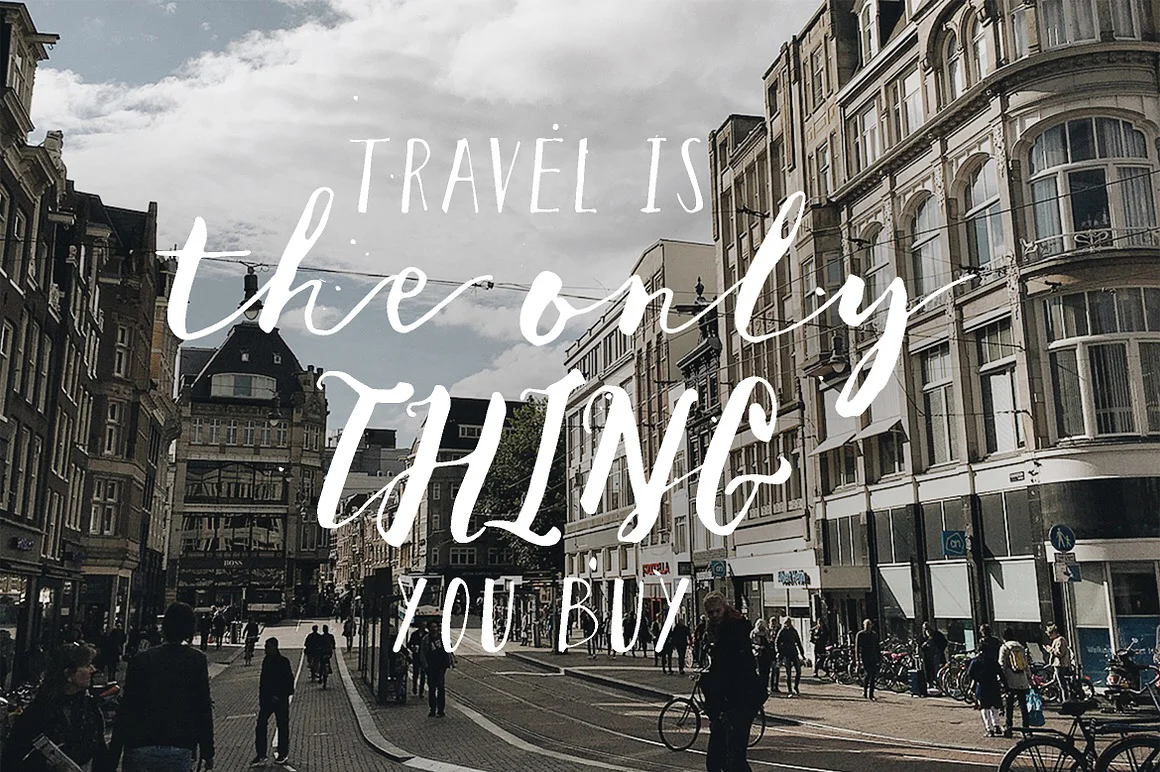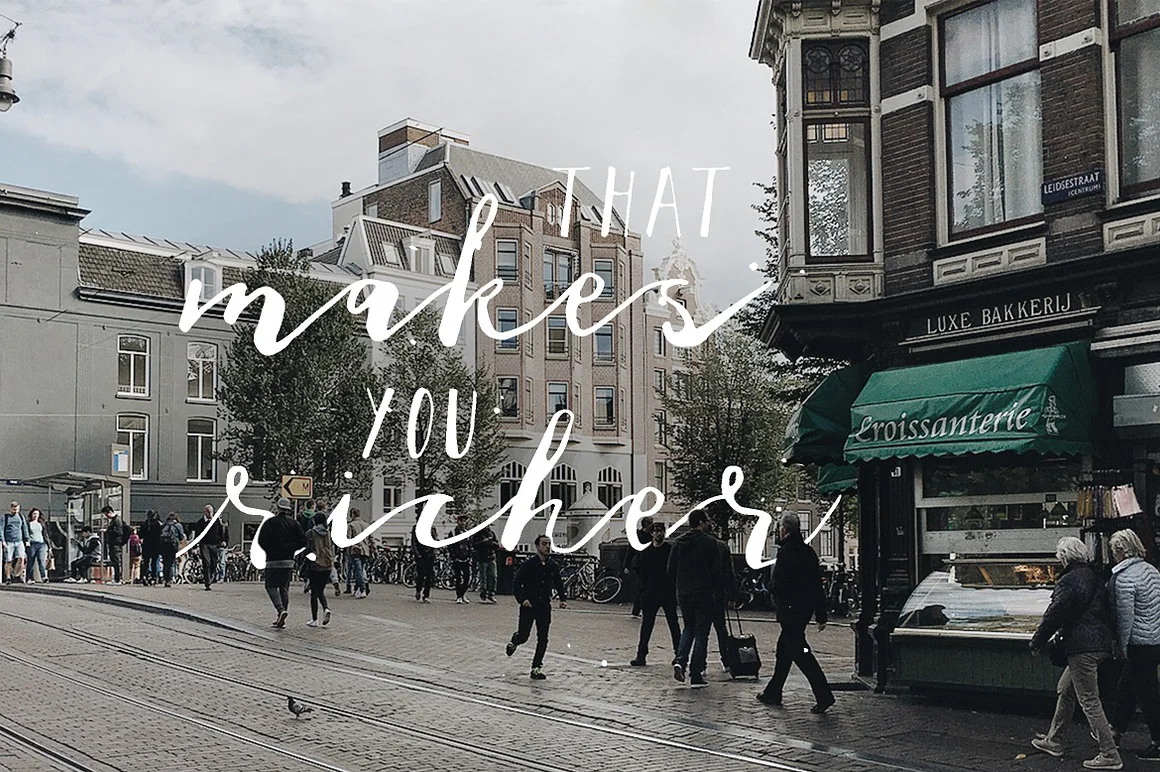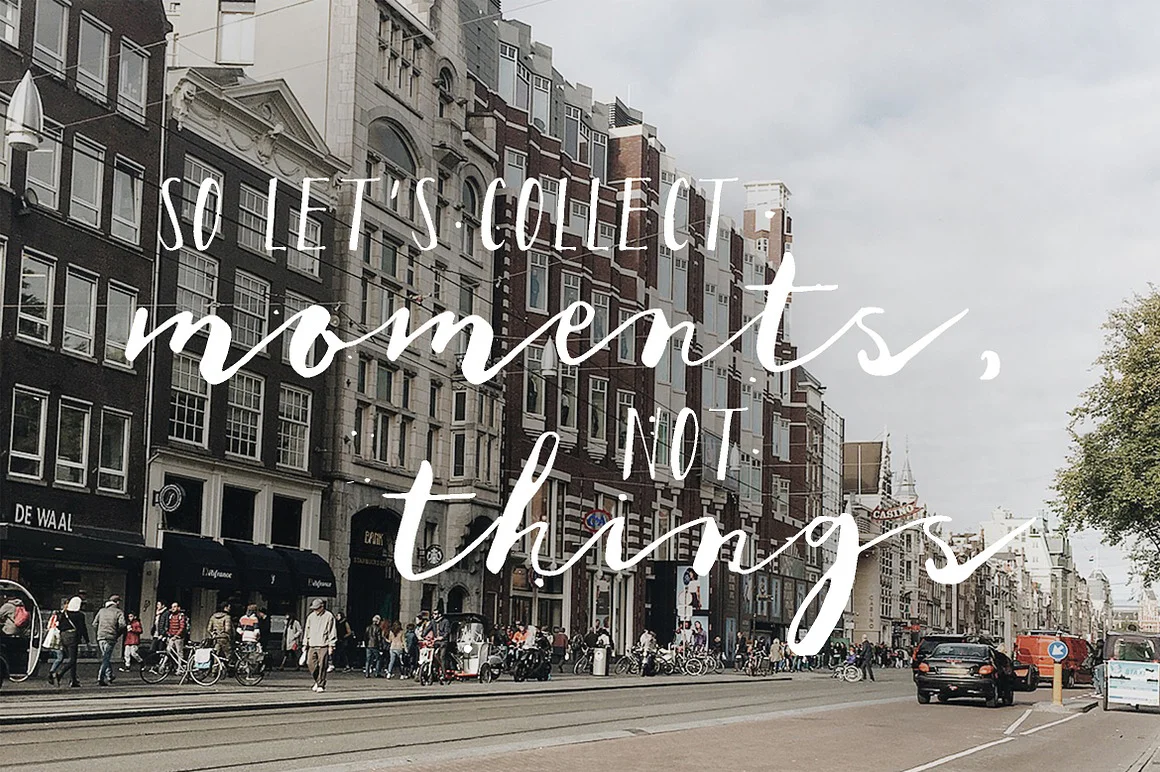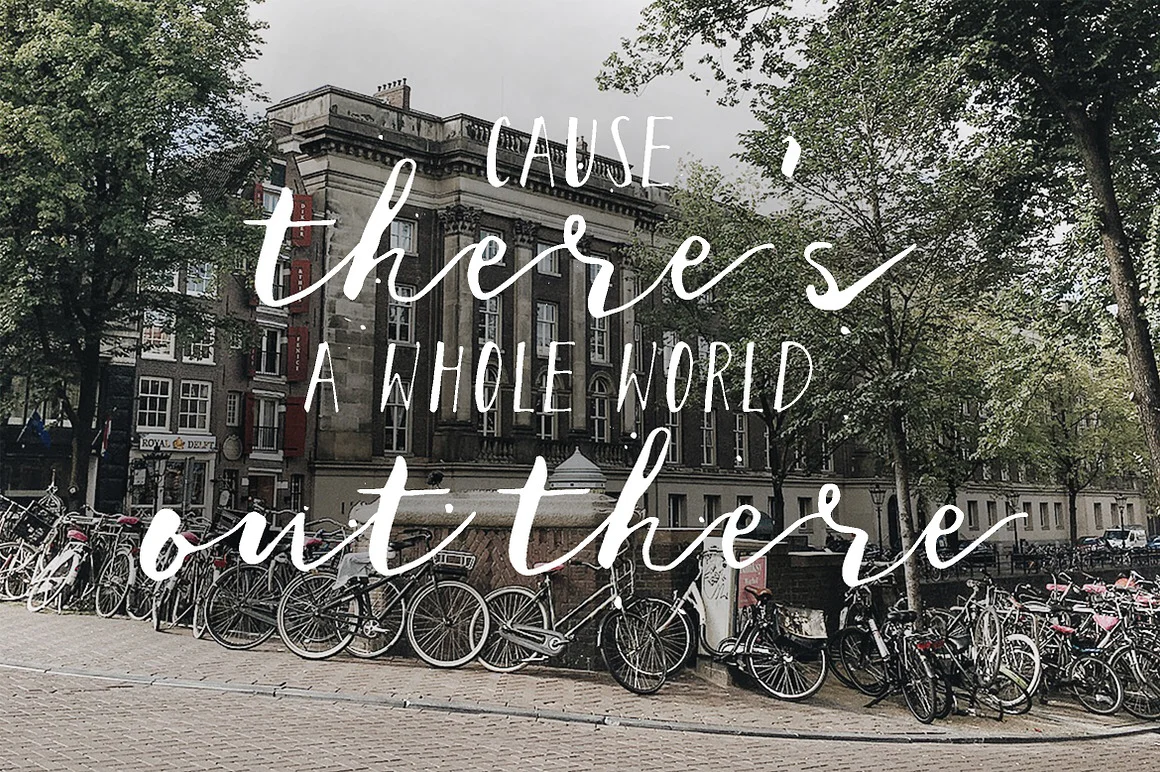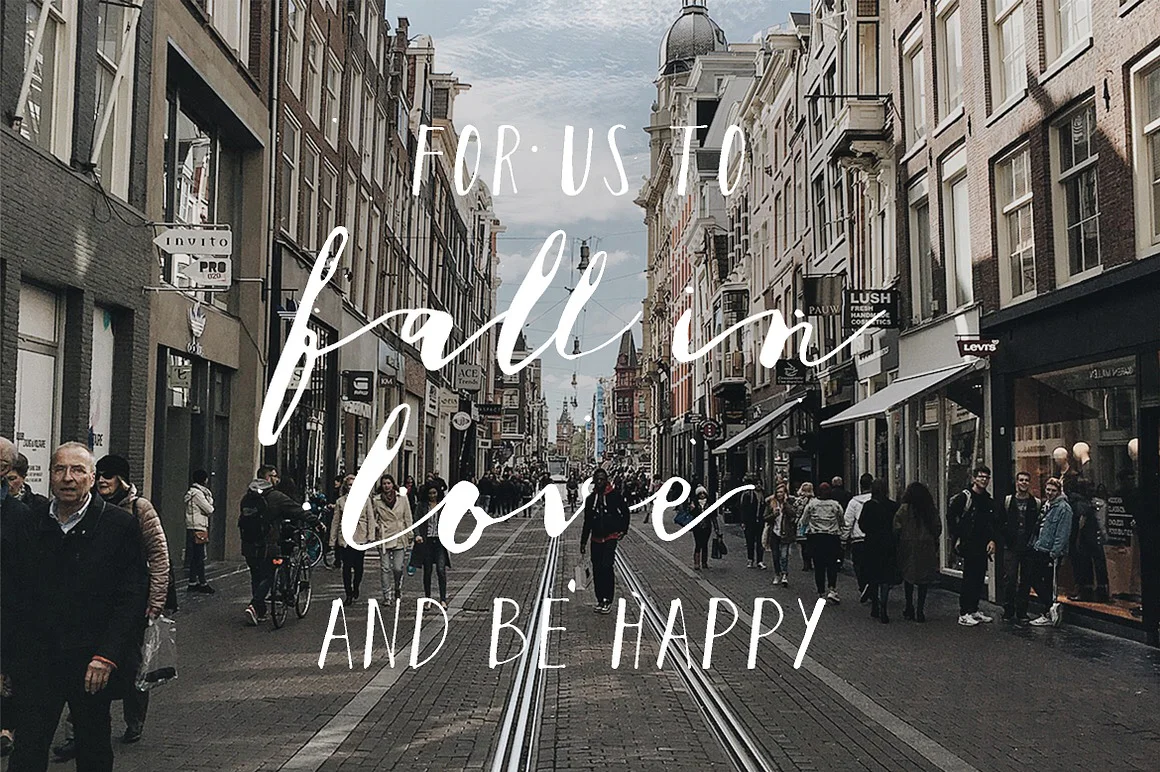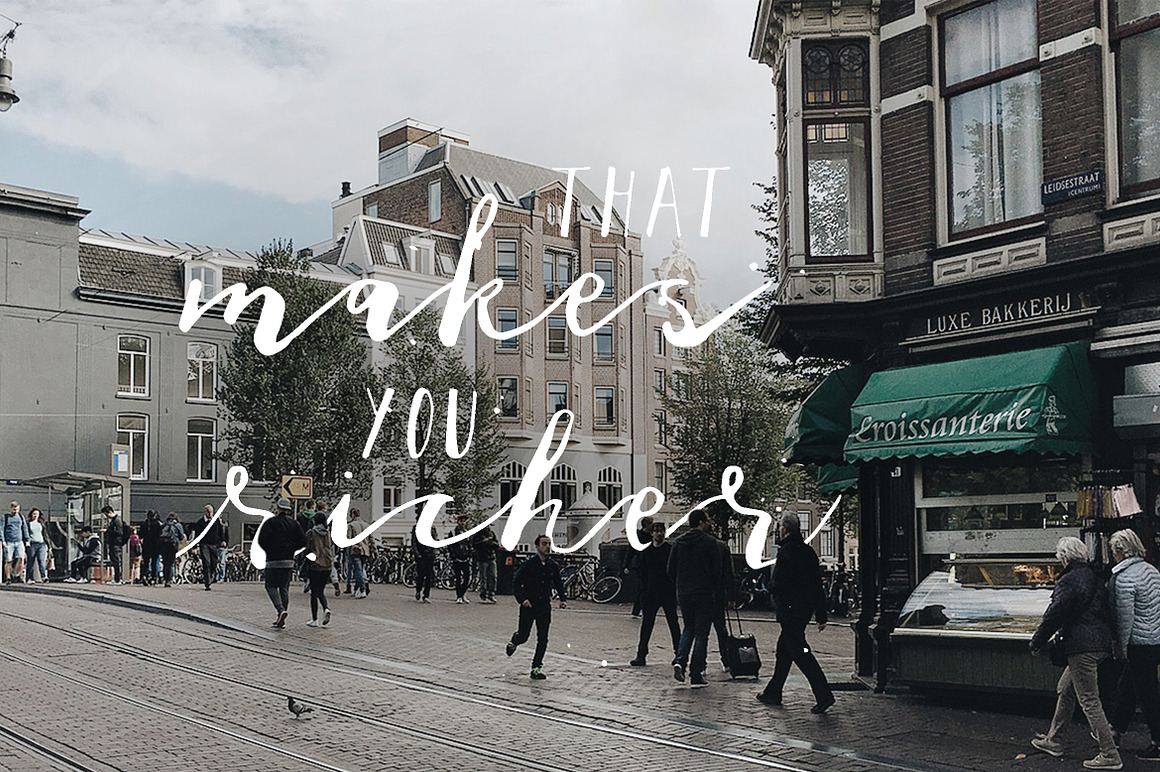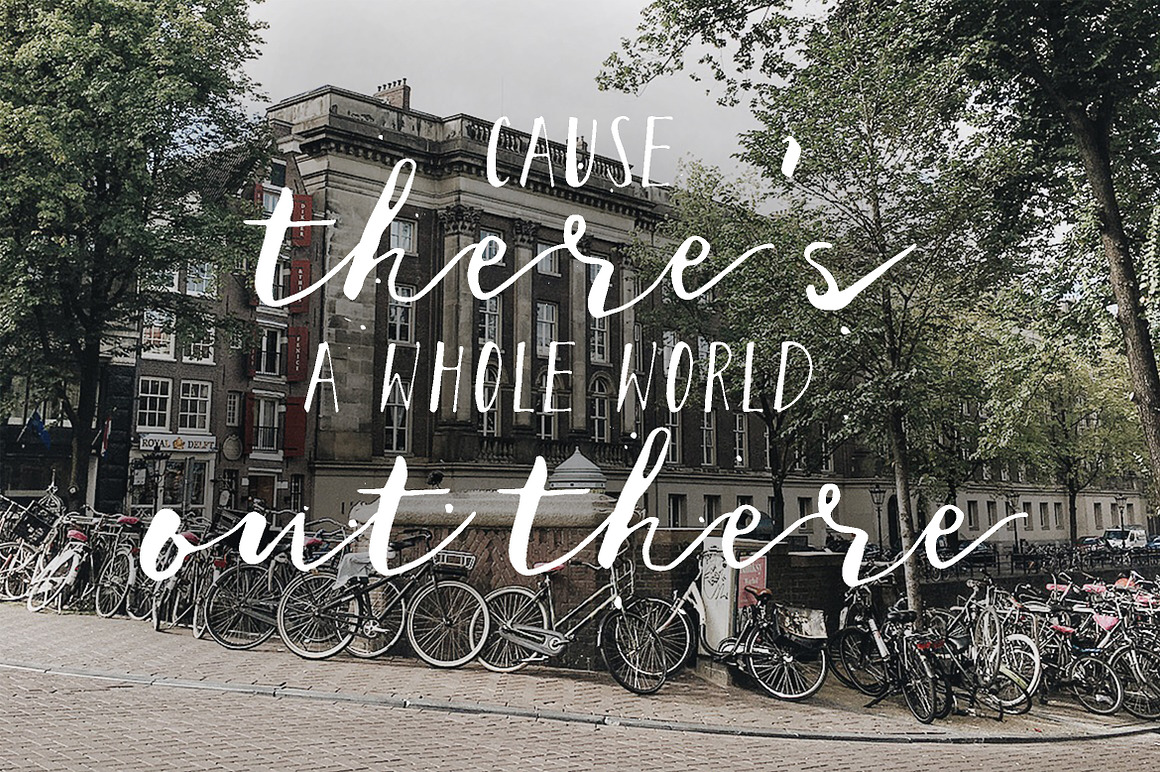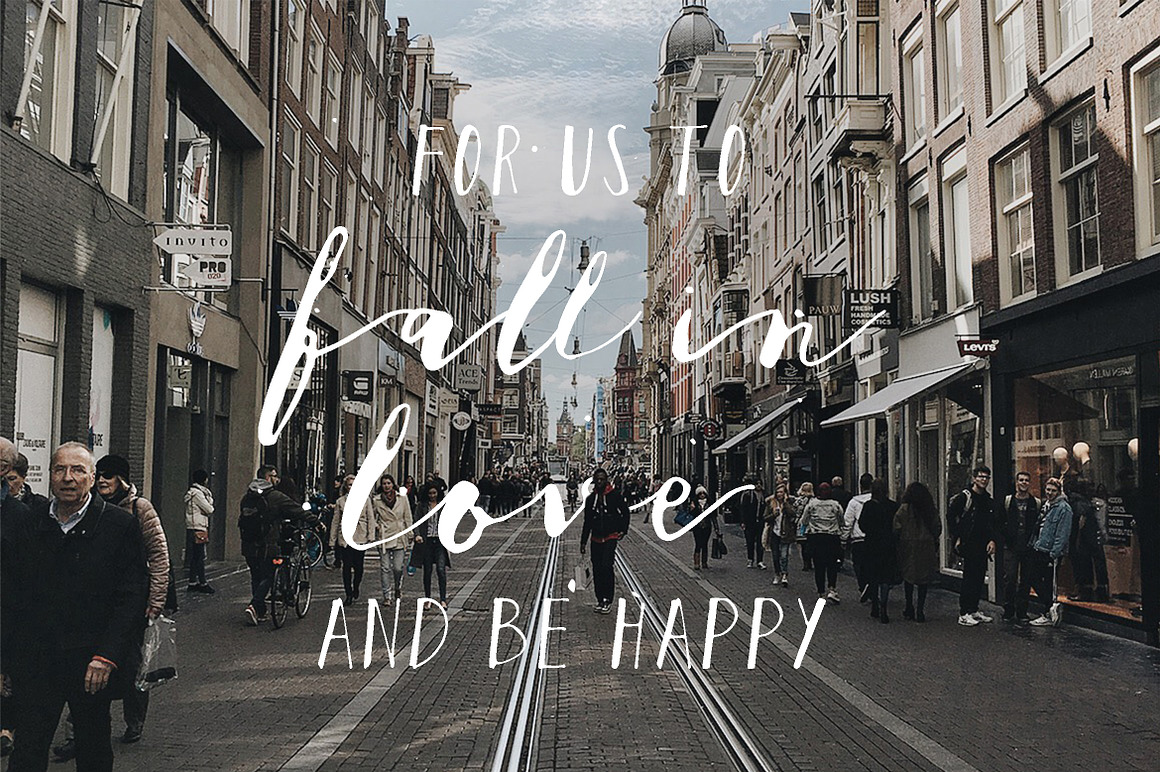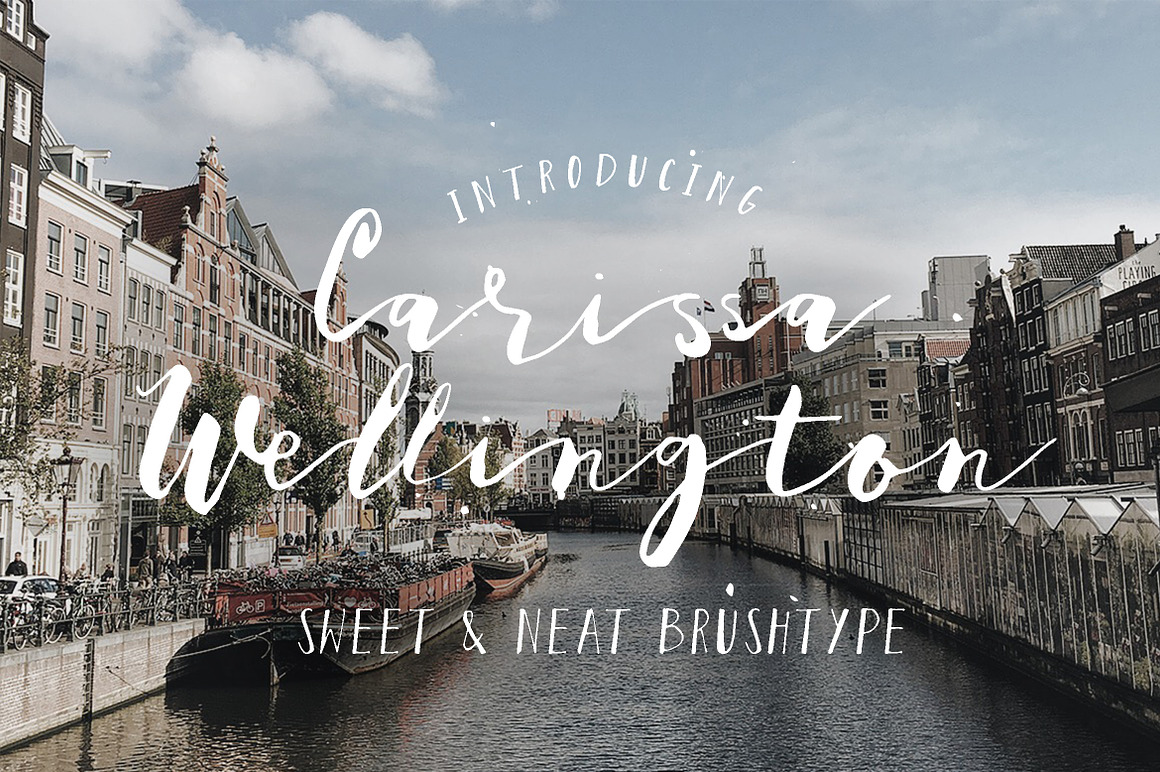
Carissa Wellington Script Font
Carissa Wellington Script Font is perfect for luxury wedding invitations, high-end fashion branding, elegant beauty product packaging, sophisticated greeting cards, upscale restaurant branding, premium boutique logos, exclusive event stationery, refined social media graphics, luxury lifestyle marketing, and aristocratic brand identities.
What makes Carissa Wellington Script Font so exciting is its regal elegance that captures the sophistication of aristocratic penmanship with modern luxury appeal. This distinguished script typeface combines classical refinement with contemporary functionality, creating typography that exudes prestige and timeless sophistication.
The Carissa Wellington Script Font family includes regular weight with extensive stylistic alternates, elegant swash characters, sophisticated ligatures, and ornamental flourishes that enable designers to create truly distinguished and personalized luxury typography compositions.
Experience aristocratic elegance with Carissa Wellington Script Font, a magnificently crafted script typeface that brings the grace of high society penmanship to contemporary luxury design. This exceptional font embodies the highest standards of typographic refinement, making it the ultimate choice for projects demanding uncompromising elegance and prestige.
The exquisitely flowing letterforms of Carissa Wellington Script Font showcase the refined artistry of traditional aristocratic calligraphy, with graceful ascenders and perfectly balanced proportions that create natural elegance in every composition. Each character displays meticulous attention to classical penmanship traditions while maintaining optimal readability for modern applications. The font's sophisticated curves and refined spacing contribute to its distinguished appearance and premium quality.
Luxury brands and high-society designers exclusively choose Carissa Wellington Script Font for projects requiring the ultimate in typographic prestige and aristocratic appeal. The comprehensive character set includes uppercase and lowercase letters, numerals, extensive punctuation, international accents, and exclusive decorative elements that provide complete support for the most demanding luxury design applications.
The timeless distinction of Carissa Wellington Script Font ensures exceptional performance in both exclusive print applications and prestigious digital platforms. Whether creating royal wedding stationery, developing luxury fashion brand identities, or designing elite event materials, this remarkable typeface delivers the aristocratic elegance that defines true luxury and refinement.
Elevate your most prestigious projects with Carissa Wellington Script Font. This extraordinary script typeface transforms ordinary text into expressions of aristocratic sophistication, making it the definitive choice for designers who create experiences worthy of the highest echelons of society.